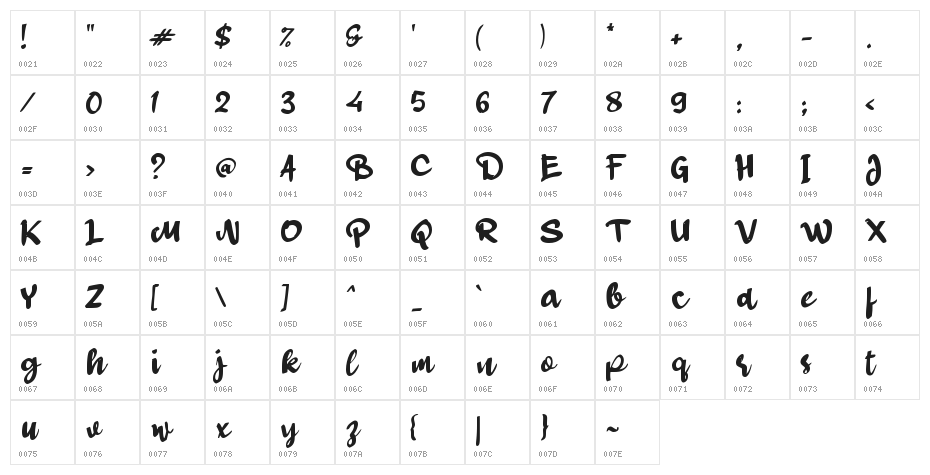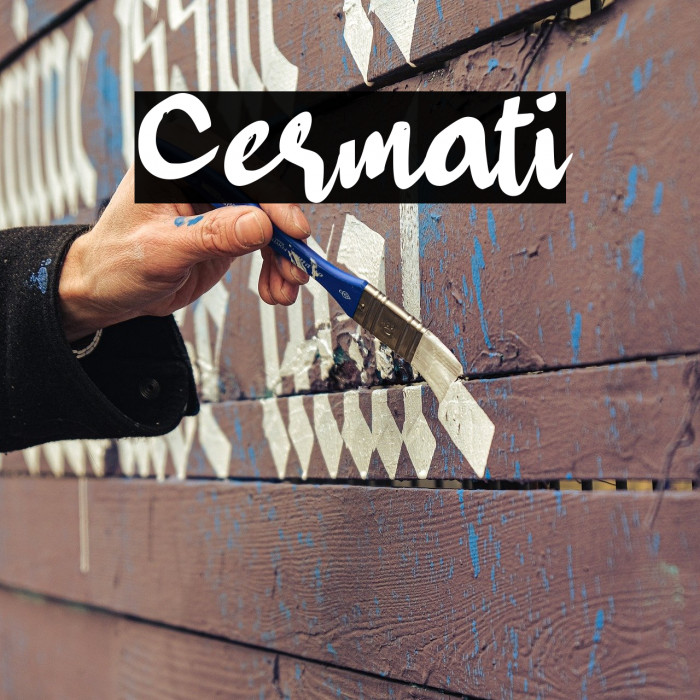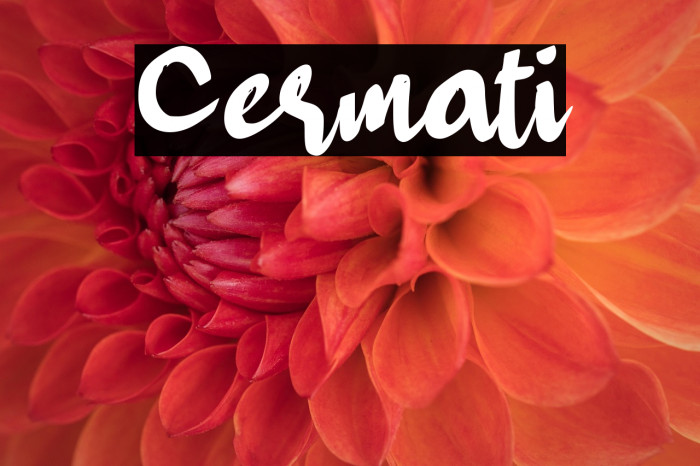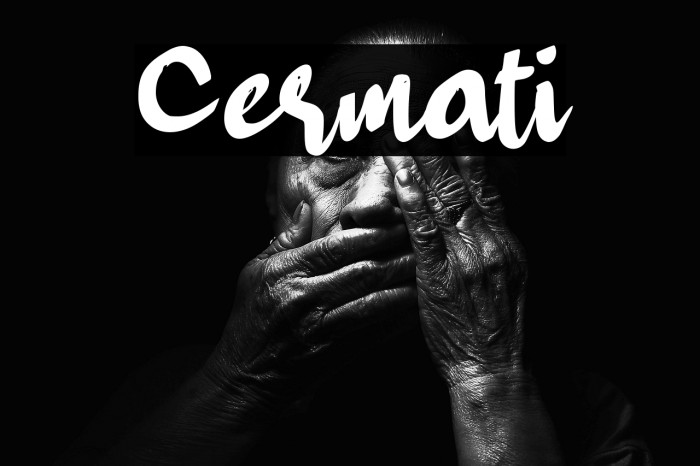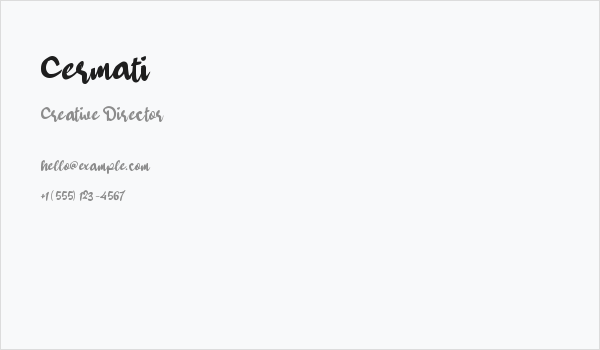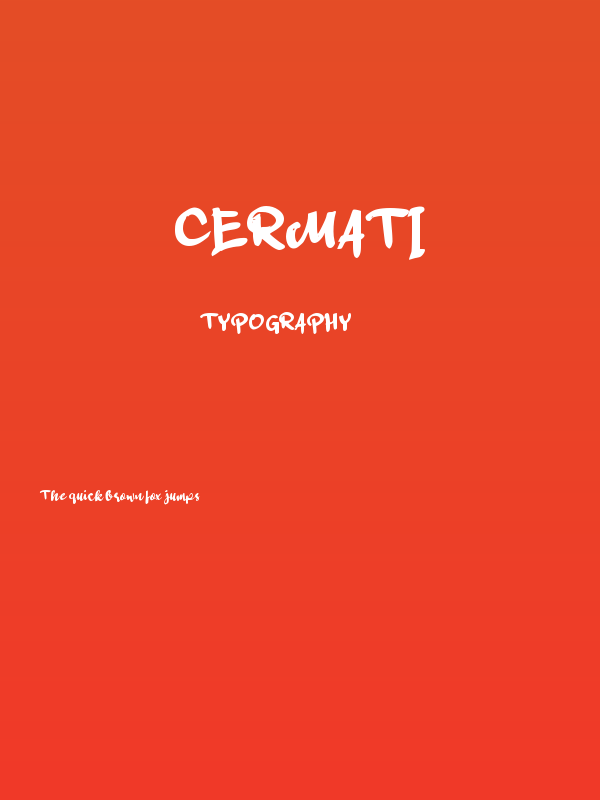
Cermati Font
Cermati Description
This font features a bold and expressive script style with a handwritten appearance. The uppercase letters are characterized by their fluid, sweeping curves and dynamic strokes, giving a sense of movement and energy. The lowercase letters maintain a consistent style, with rounded forms and a playful, casual feel. The numerals are bold and easily legible, matching the overall aesthetic of the alphabet. Special characters are integrated seamlessly, maintaining the font's cohesive look. This font's unique style makes it stand out, offering a blend of modern flair and traditional script elements.
| Use Case | Logos, Headlines, Invitations |
| Proposed Projects | Ideal for branding projects, invitations, greeting cards, and any design requiring a personal, artistic touch. |